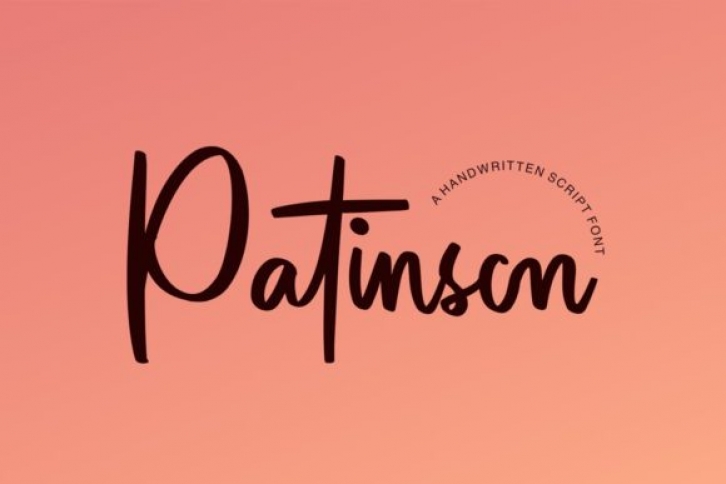
Patinson is a sweet, delicate and casual handwritten font. It fits both formal and informal designs. Use your imagination to employ this font in an adequate way.